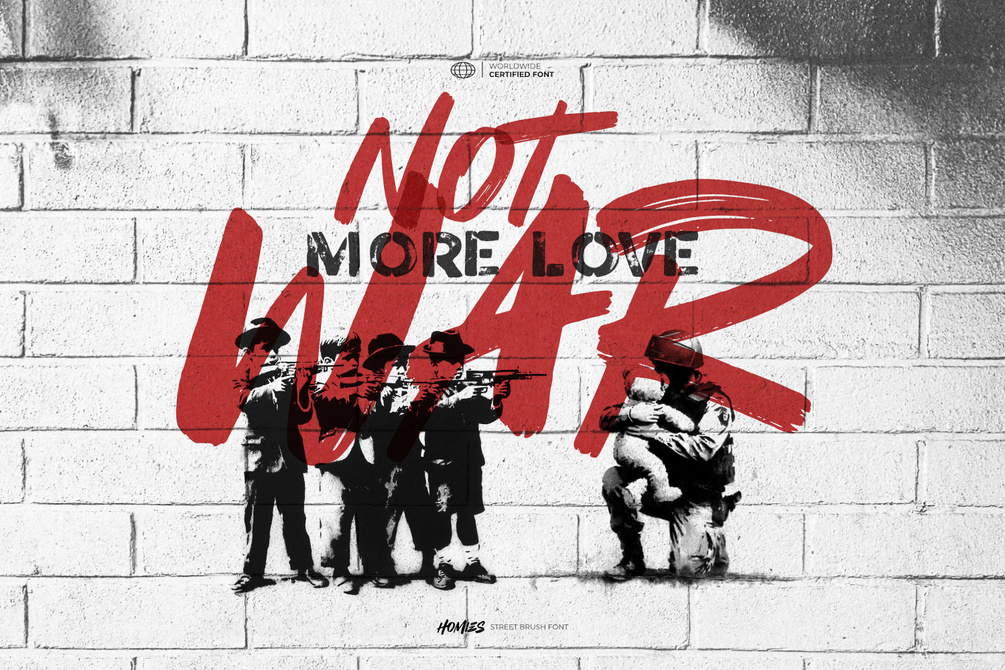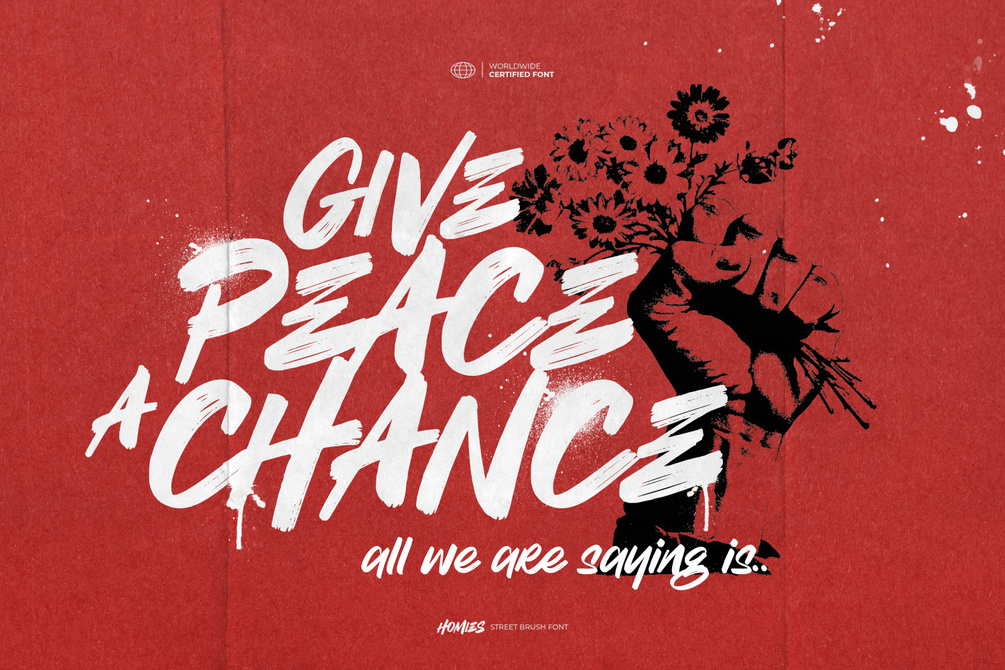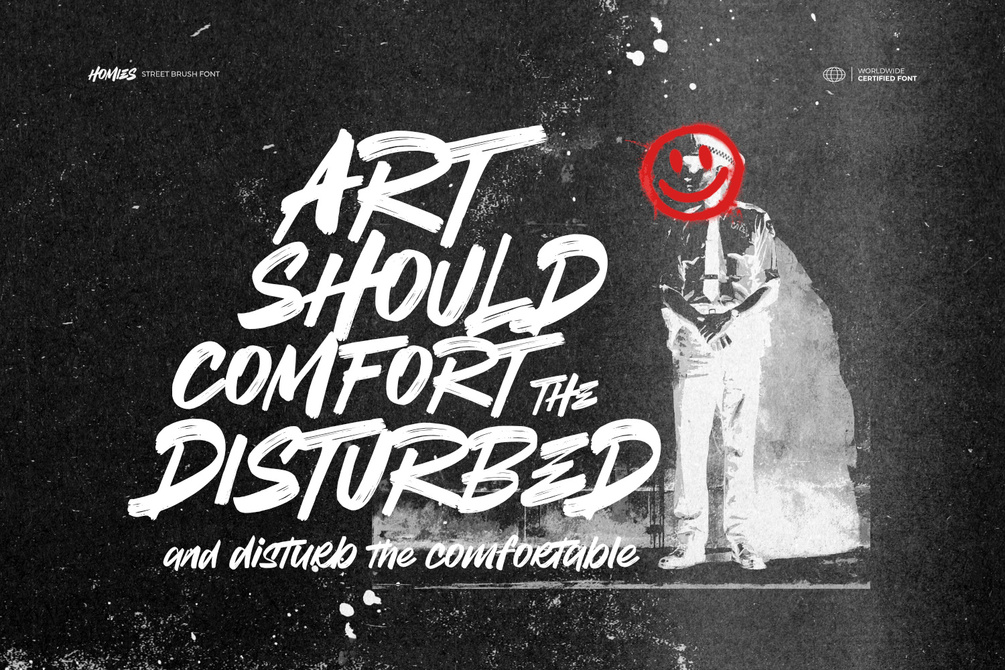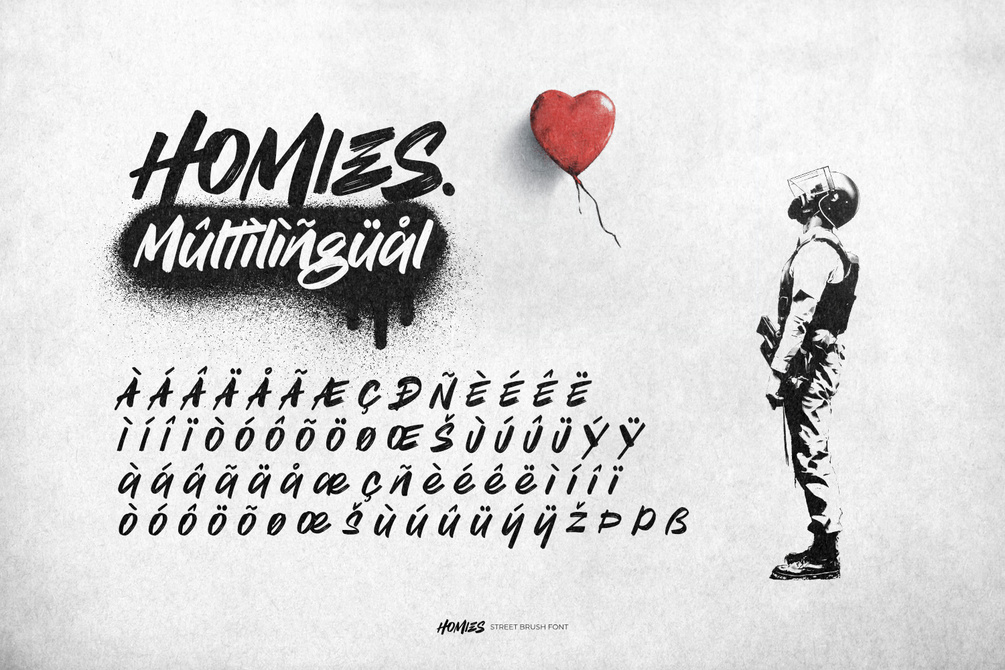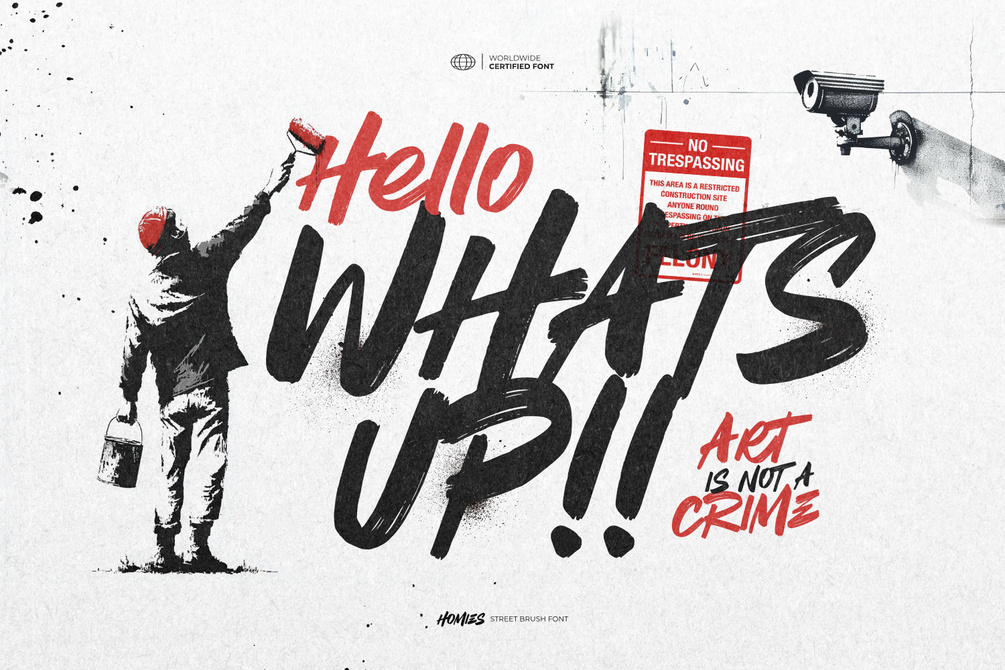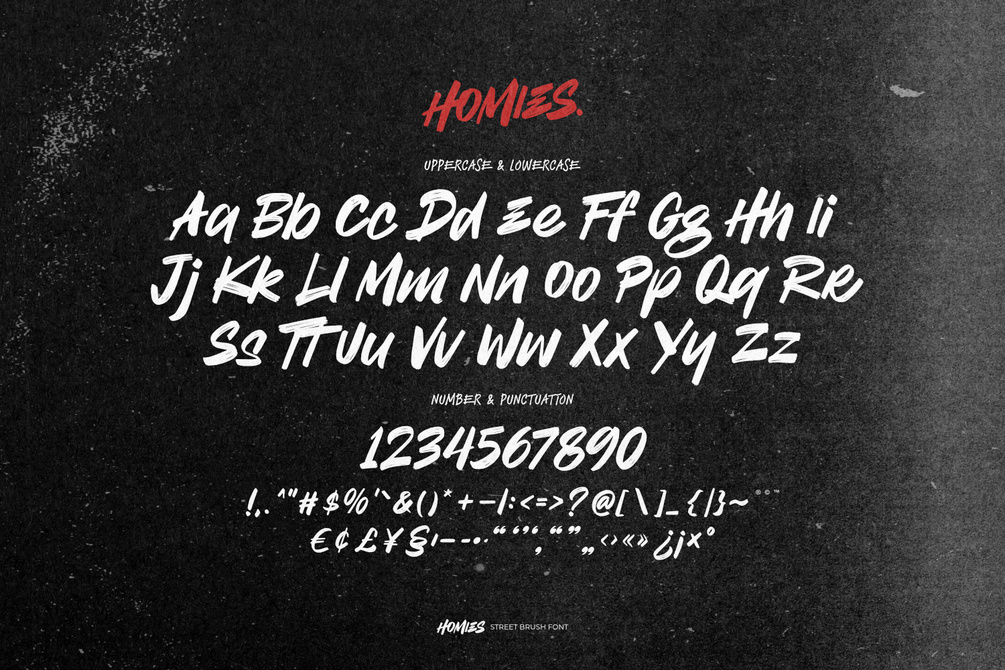
Homies - Street Brush Font
Proudly Present Homies - Street Brush Font, created by ikiiko
Homies is a bold street brush font inspired by the raw energy of urban culture, the chaos of back-alley murals, and the fearless freedom of youth. Each letter is crafted with raw, hand-painted strokes that echo the power and emotion of real street art — messy, loud, and beautifully expressive. This font was made for the rebels, the creators, and the dreamers who see the city as their canvas and typography as their voice. Every curve and brush texture captures the pulse of movement. It radiates energy, attitude, and individuality, bringing a sense of authenticity to every word it shapes.
Homies turns your message into a visual statement — raw, emotional, and full of life. Perfect for designers who crave freedom in expression. t’s a rebel typeface that celebrates imperfection and human touch — a reflection of real art made by real hands. Use it to inject your designs with bold street personality, expressive movement, and youthful energy that refuses to be tamed. This font is ideal for streetwear brands, graffiti posters, covers, event flyers, youth campaigns, modern branding, and any creative project that thrives on the rhythm of the streets.